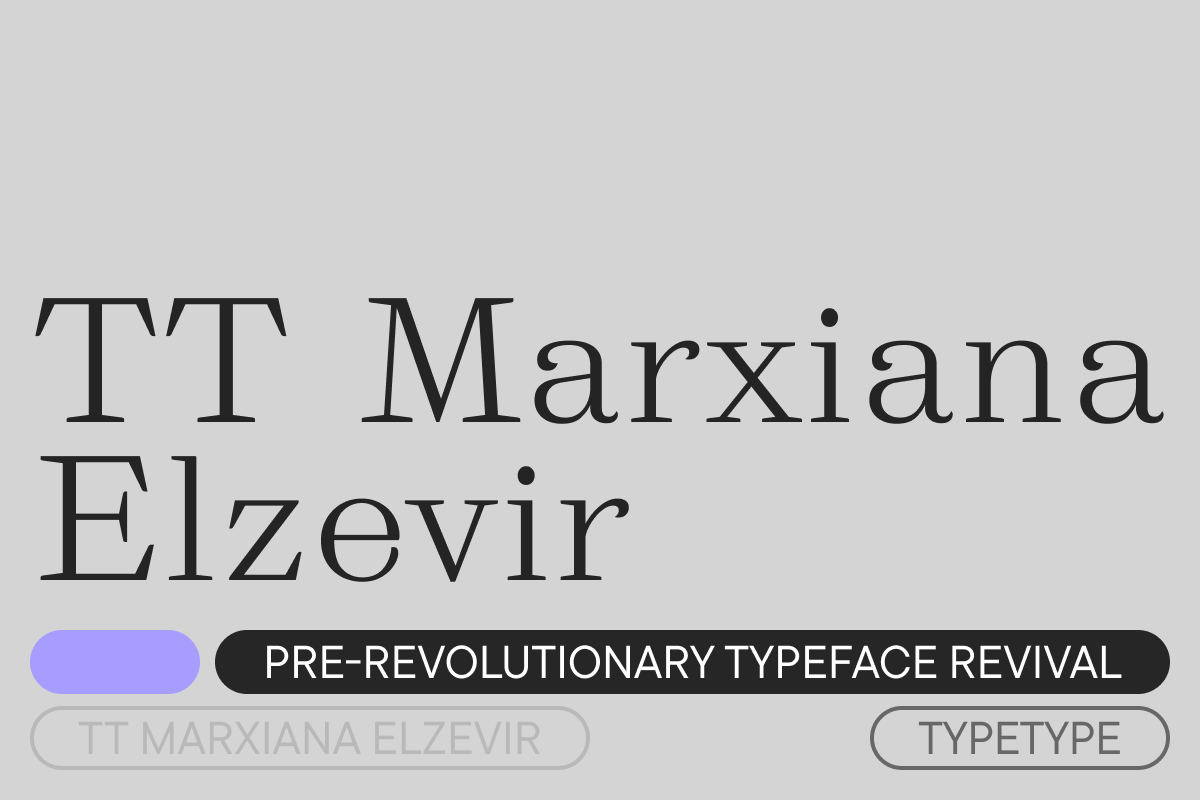
TT Marxiana Elzevir
TT Marxiana is a project to reconstruct pre-revolutionary fonts used in the 1887 layout of Niva magazine, published by A.F. Marx in St. Petersburg. The focus is on reviving a specific font set from that edition. TT Marxiana Elzevir is a title font and is a compilation of monastic Elzevir that were actively used in the Niva magazine for all its prints. TT Marxiana Elzevir has sharp forms, and the influence of deformations from typographic printing is not as noticeable in the forms of its signs.